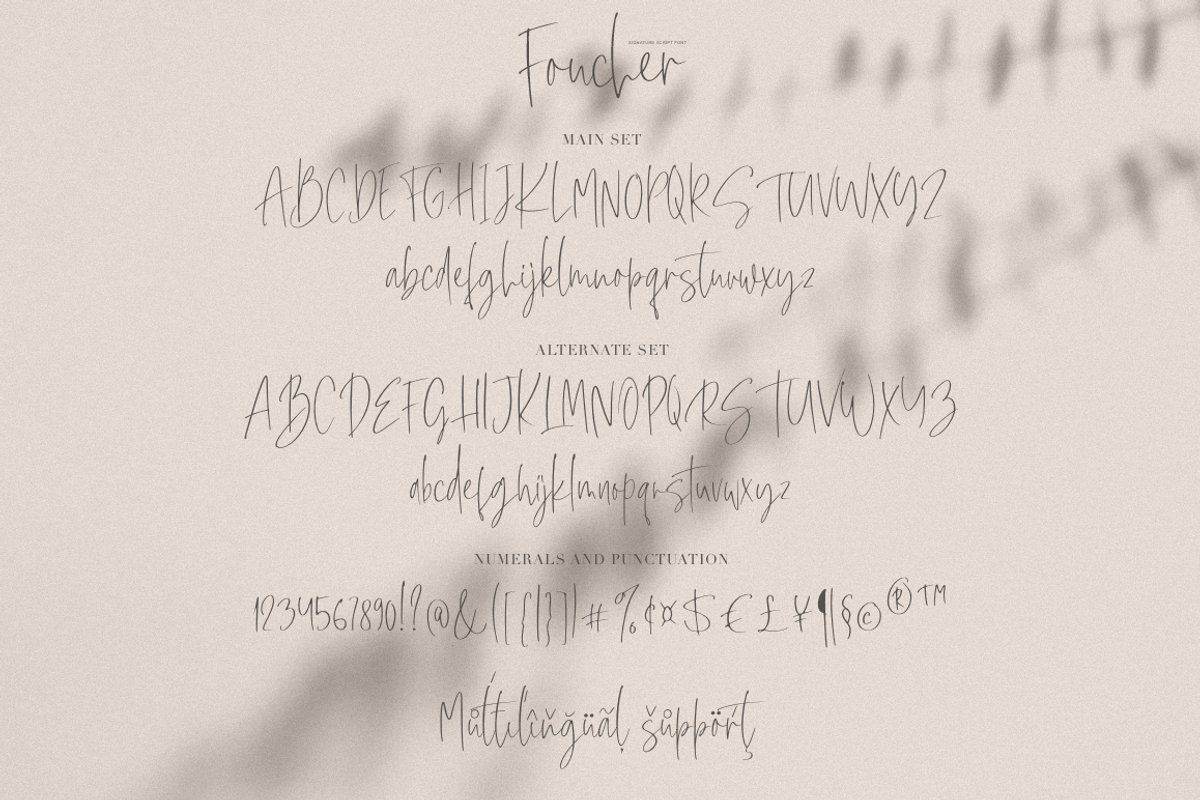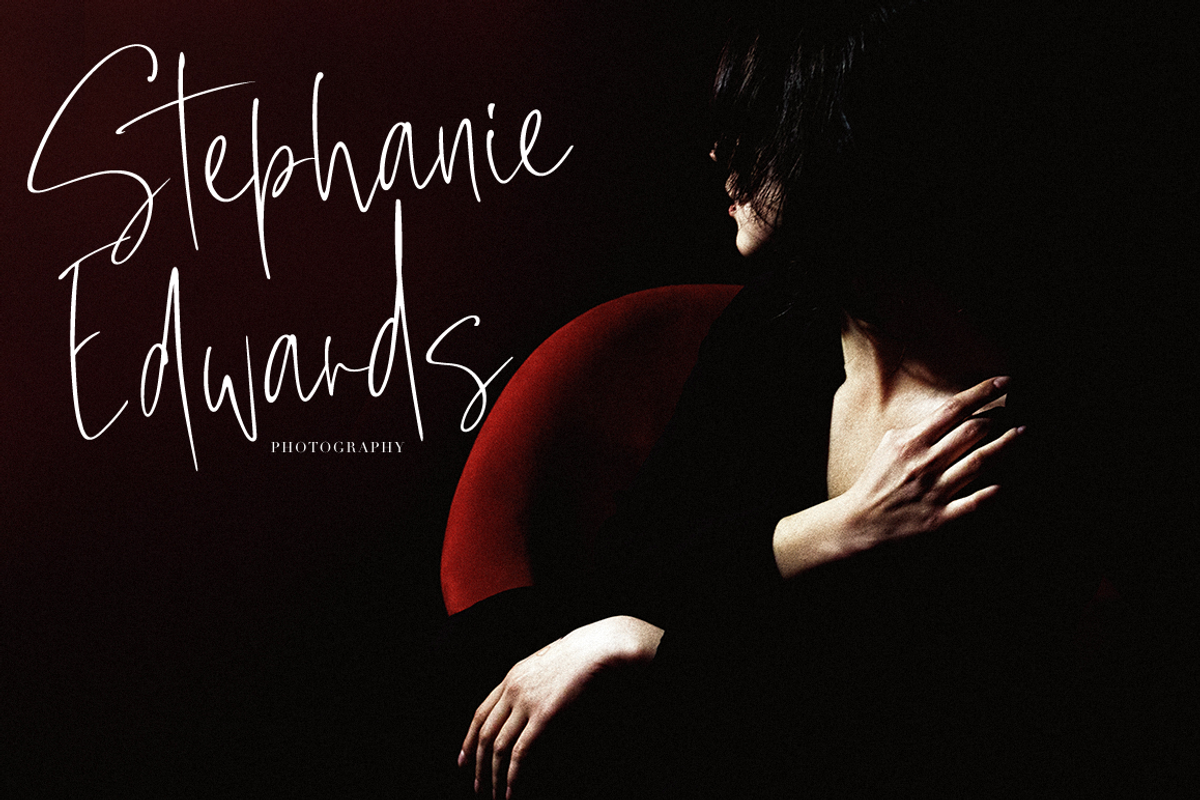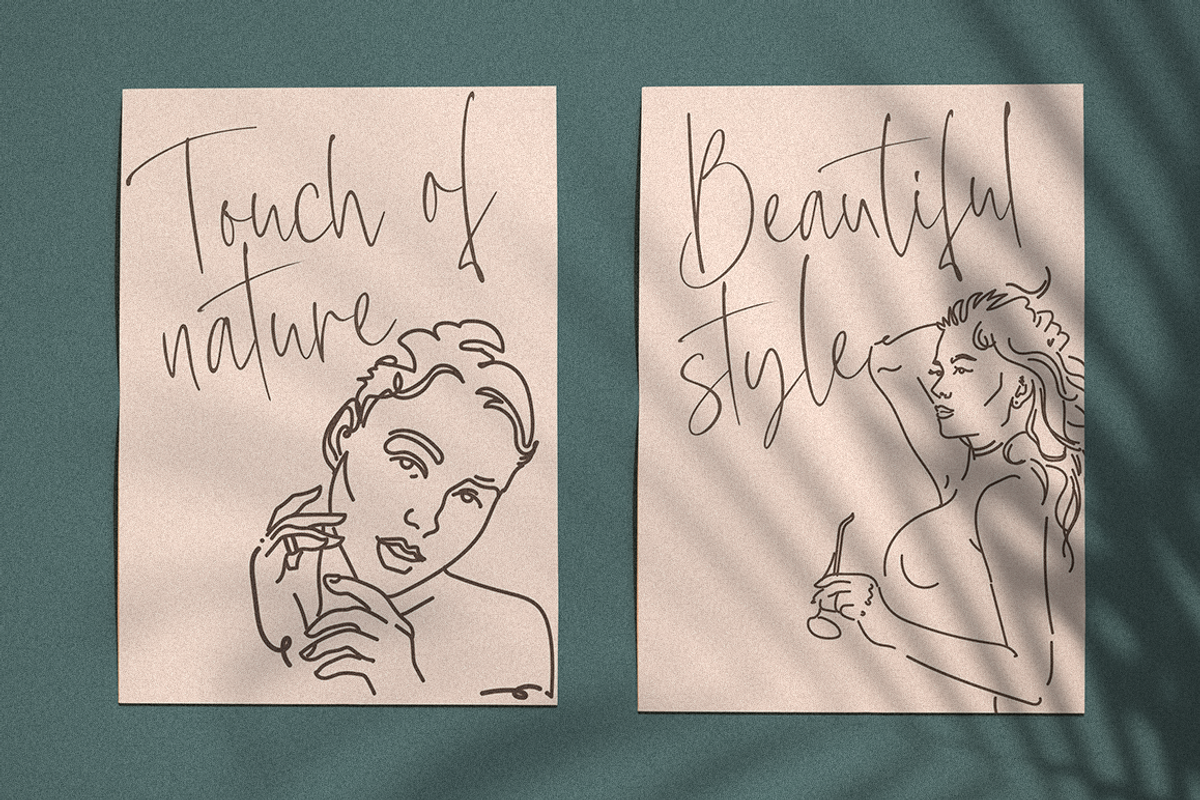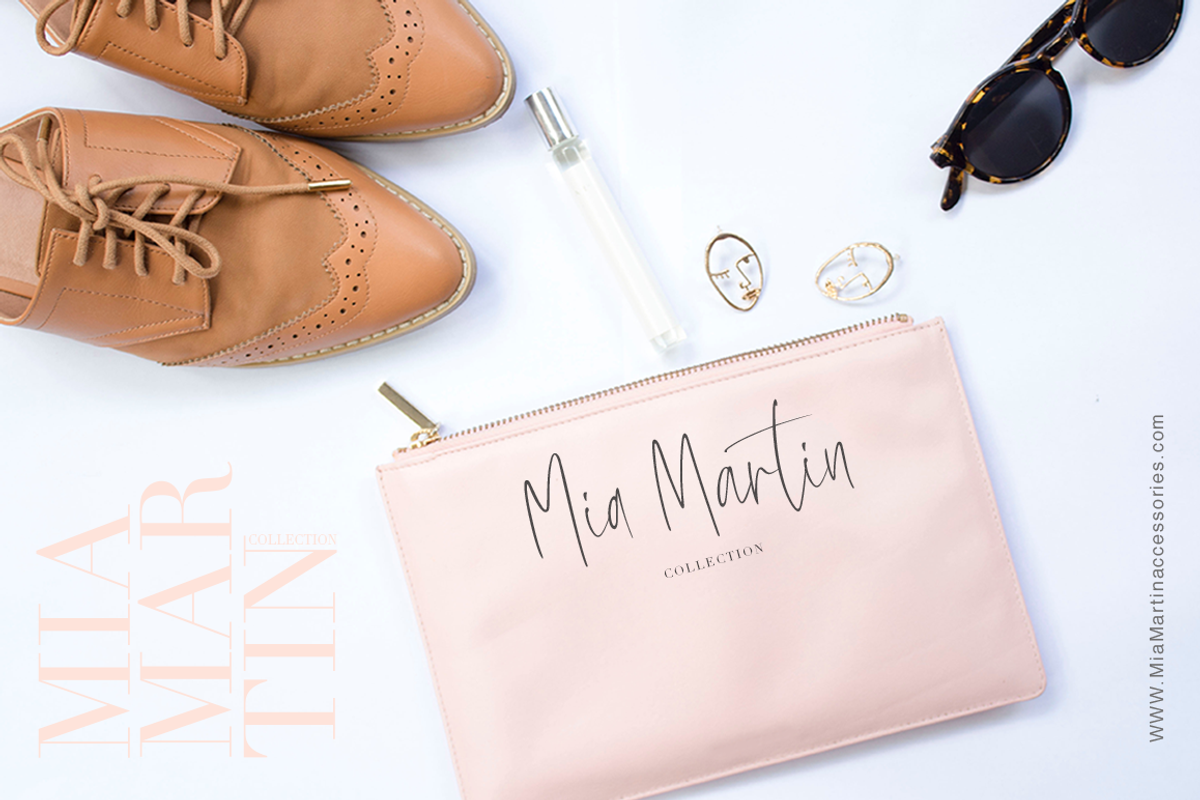
Foucher
Foucher - a new signature script font.
This beautiful font is light and elegant, will emphasize your individuality in any project. You can also use them to create a logo or use for small businesses, branding, t-shirts, book covers, stationery, marketing, blogs, magazines, and more. This font includes a basic set of letters and a complete set of alternatives set as well as numbers, fractions, and basic punctuation. This font supported PUA encoded.
Following international symbols support: ÀÁÂÃÄÅĄÇĆÈÉÊËĘÌÍÎÏÐÑŃŁÒÓÔÕÖØÙÚÛÜŚŠŸÝŹŻŽßàáâãäåçèéêëìíîïðñòóôõöøùúûüýÿąćęłńśšźżž